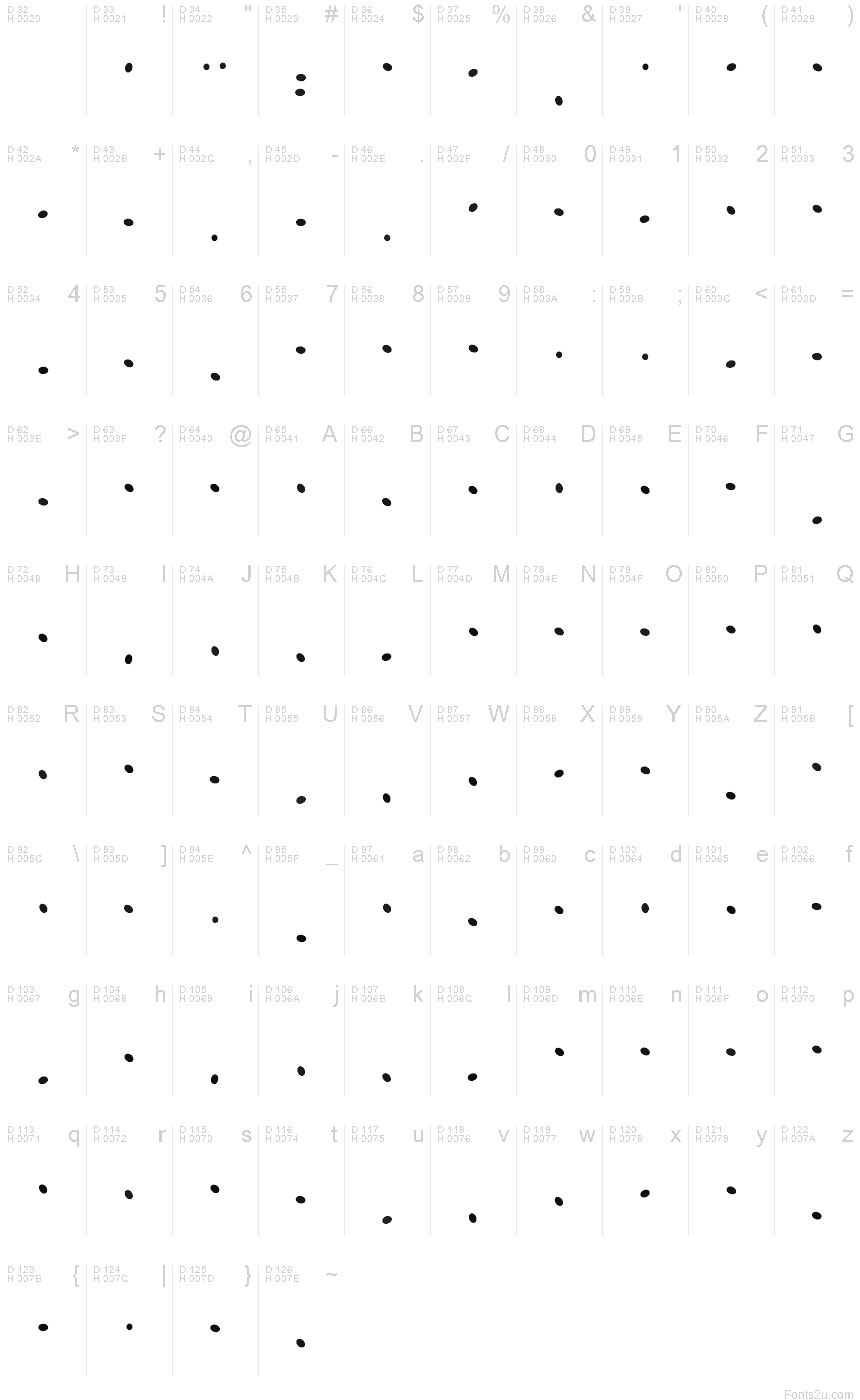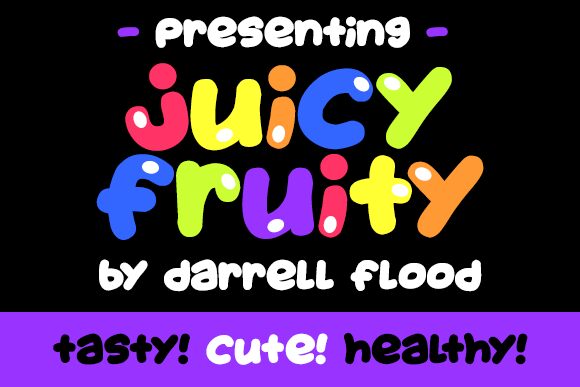
Juicy Fruity Highlights
*Note this font includes "plain" and "highlight" versions. These versions can be layered to create different colored "shines" on your text! Have fun!